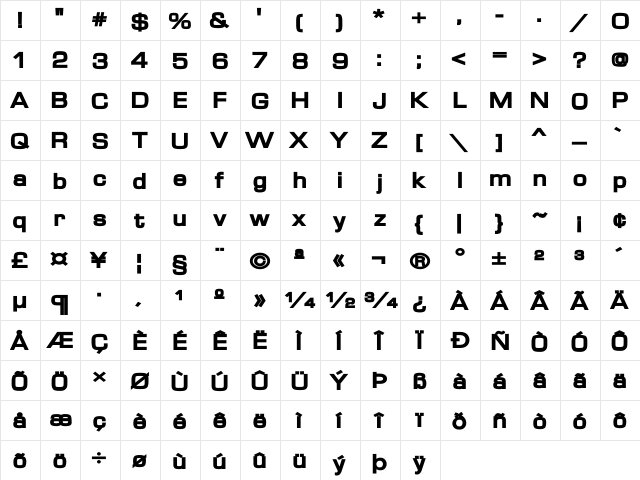
Waukegan LDO Extended Black Regular
| Foundry | LDO Fonts |
| Designer | Luke Owens |
Design Context for Waukegan LDO Extended Black Typeface
Waukegan LDO Extended Black is a composed and adaptable typeface that performs quietly and consistently across a wide range of design contexts.